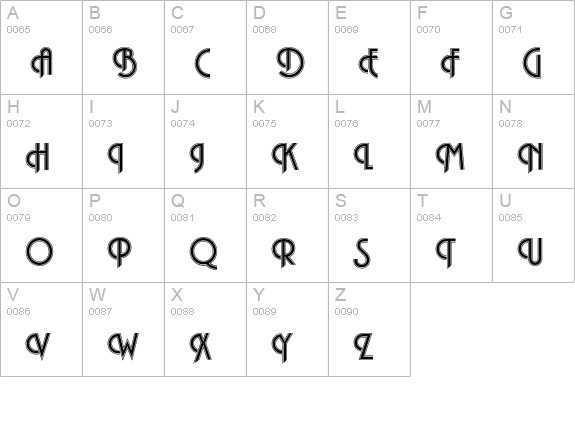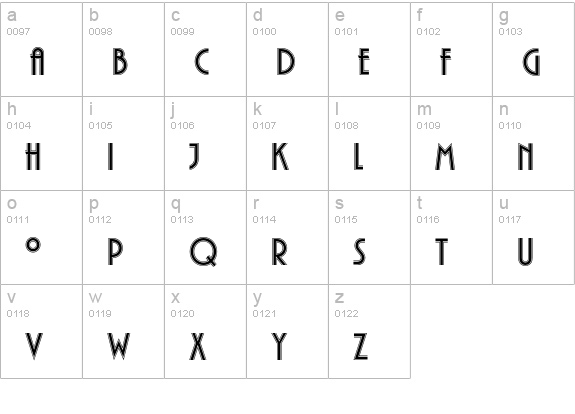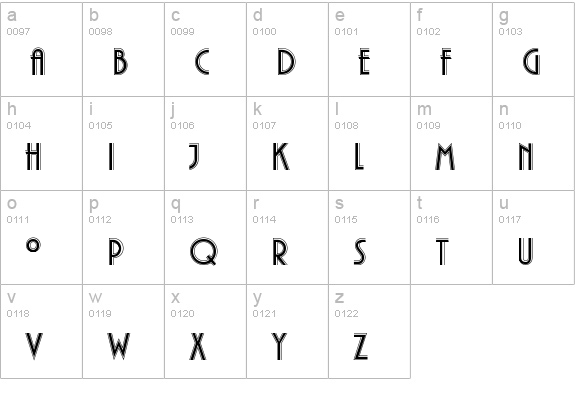
PlazaEF-Inline Font Details
PlazaEF-Inline font is a modern and stylish typeface that exudes elegance and sophistication. Its sleek inline design adds a unique touch to any project, making it perfect for both digital and print applications. The font features clean lines and a contemporary look that is sure to make a statement. One of the best things about PlazaEF-Inline font is that it is completely free to download at FontsMarket.com. This means you can easily access this high-quality font without any cost, making it a fantastic option for designers, creatives, and anyone looking to add a touch of class to their work. With PlazaEF-Inline font, you can elevate your designs and create stunning visuals that will captivate your audience. Whether you're working on a branding project, website design, or any other creative endeavor, PlazaEF-Inline font is a versatile choice that will help your work stand out. Download this exceptional font today at FontsMarket.com and take your designs to the next level!